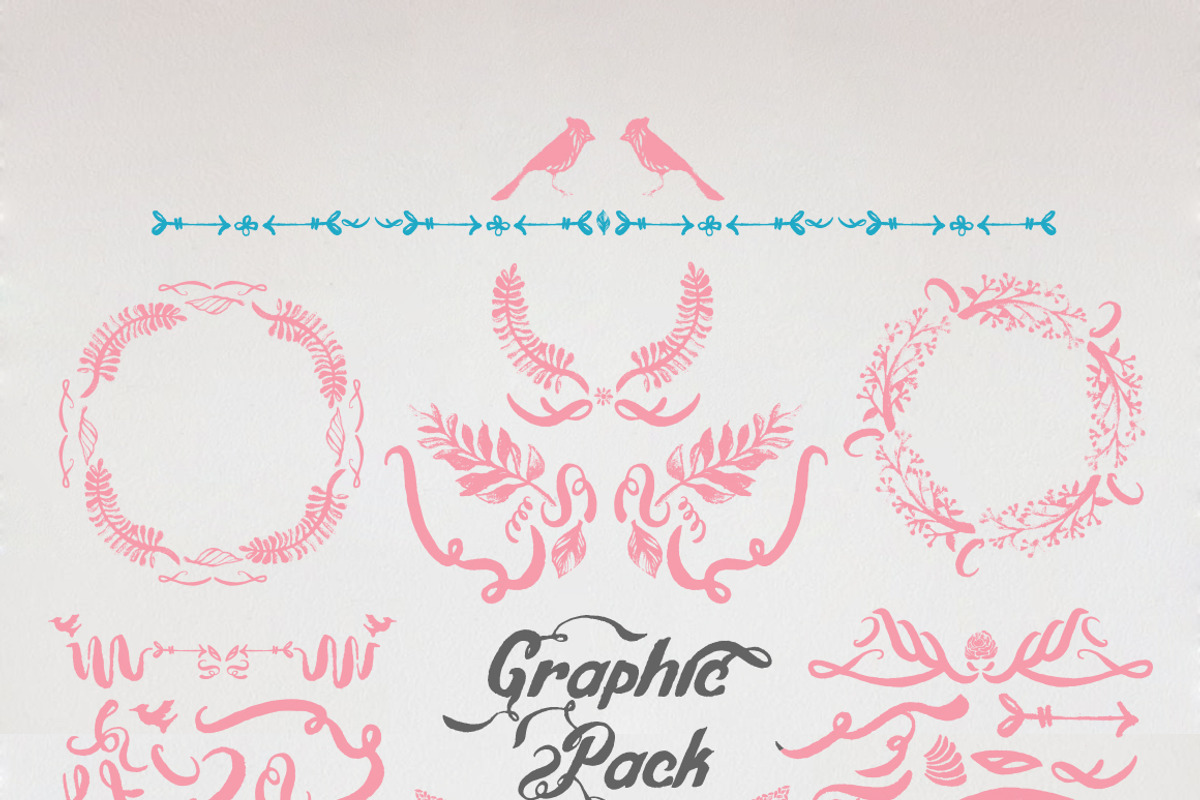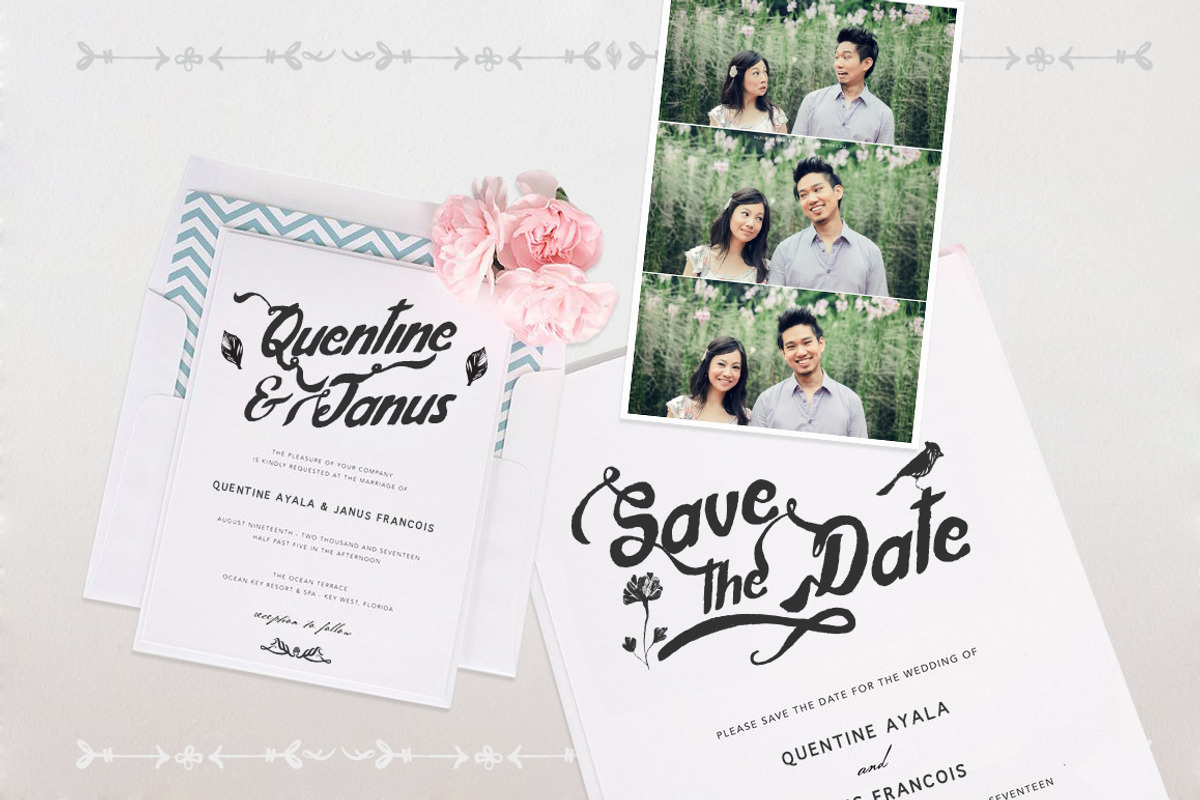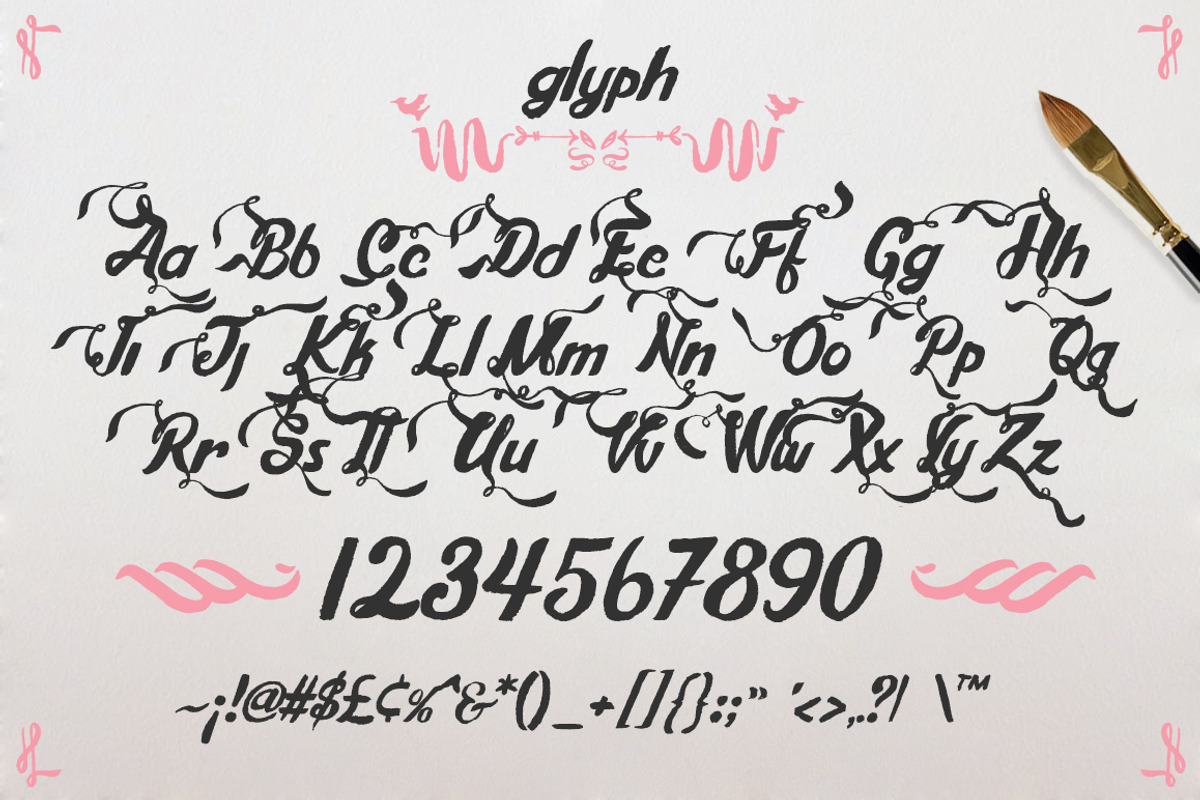
Hayze - Hand Drawn Bush Typeface
Hayze - Hand Drawn Bush Typeface by ghilkydraws is a font selected for branding, posters, packaging, typography.
Why Hayze - Hand Drawn Bush Typeface is worth a look
Hayze - Hand Drawn Bush Typeface by ghilkydraws fits naturally into Branding, posters, packaging, typography.